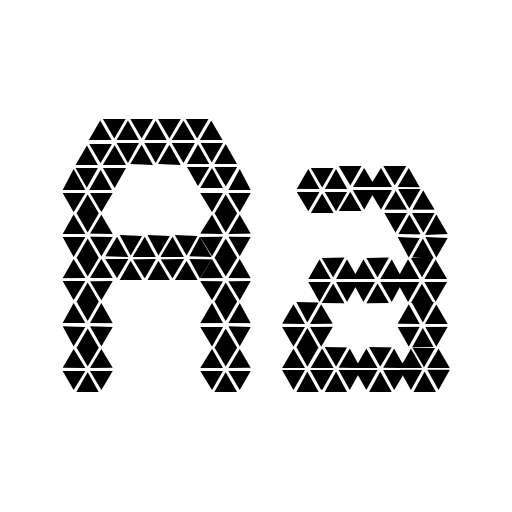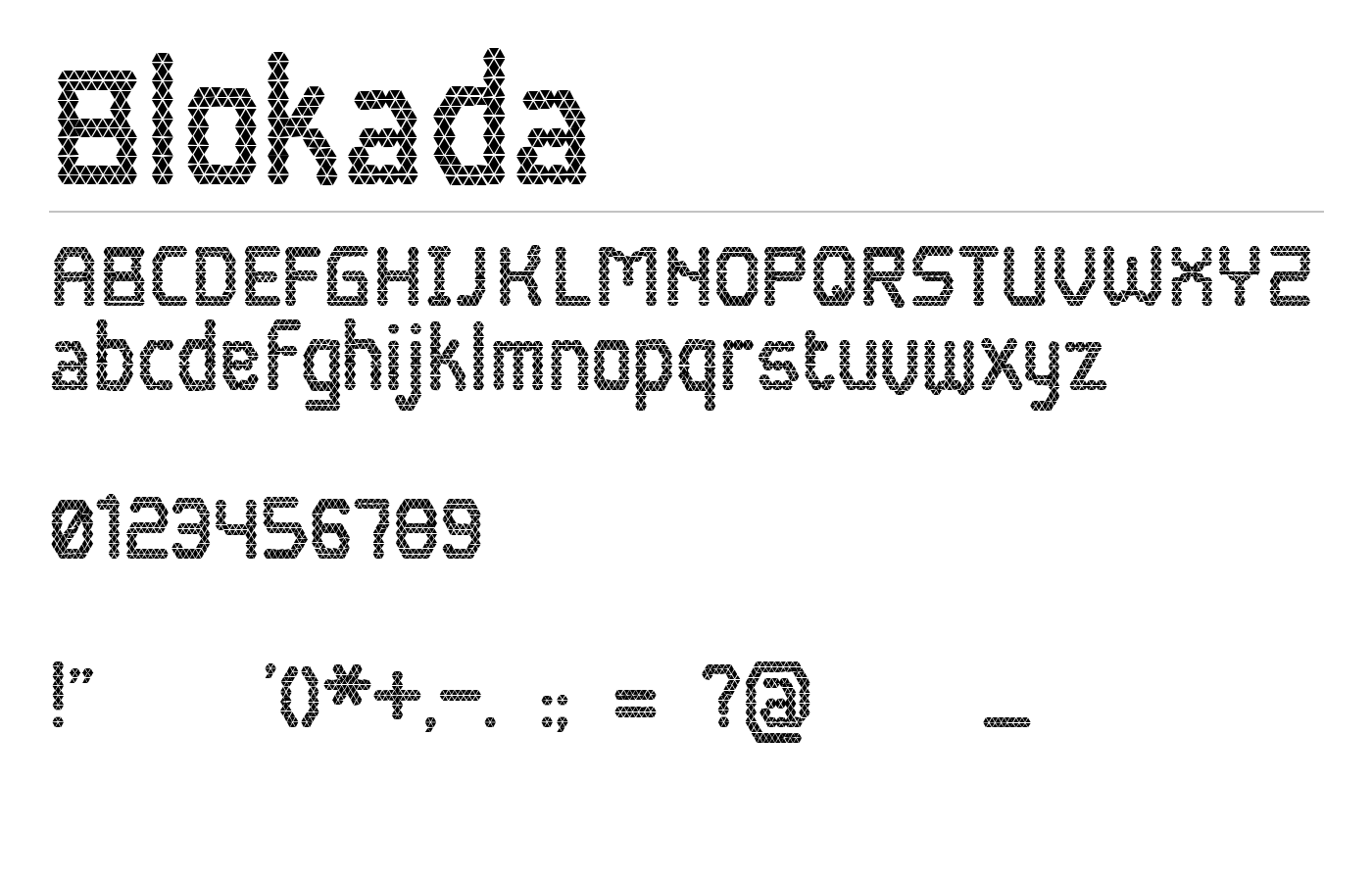
Blokada is a distinctive, geometric sans serif font composed of small triangular blocks, giving it a modern, tech-inspired aesthetic. Its bold weight and modular construction create a strong, futuristic impression that works well for eye-catching logos, digital interfaces, or branding with an innovative edge. This font’s unique, pixel-like style makes it ideal for projects seeking a bold, contemporary look with a tech-savvy personality.
Blokada Font
About Blokada Font